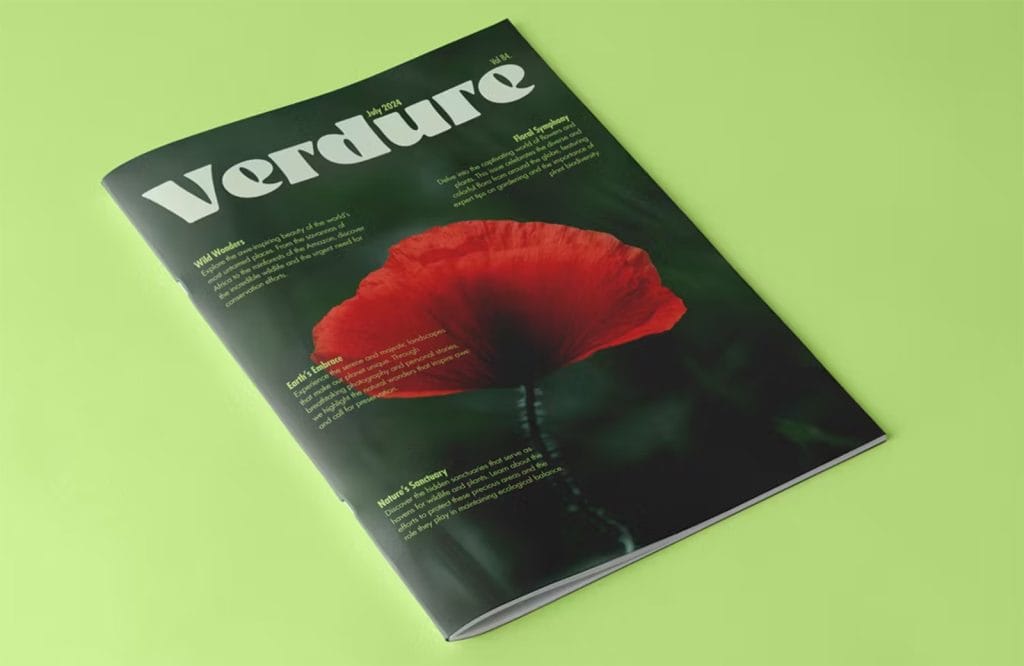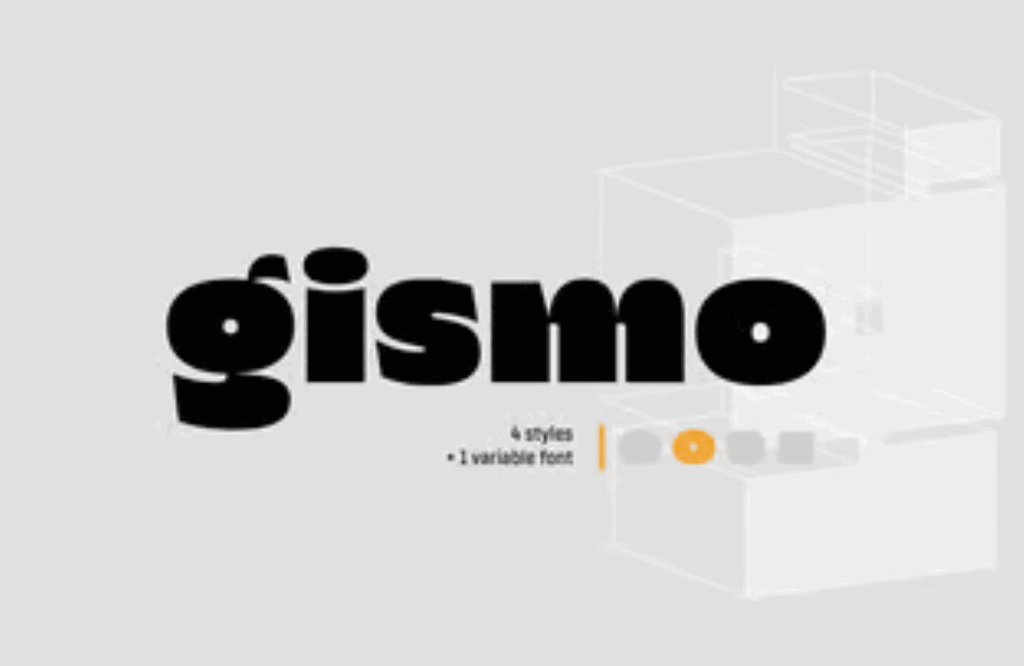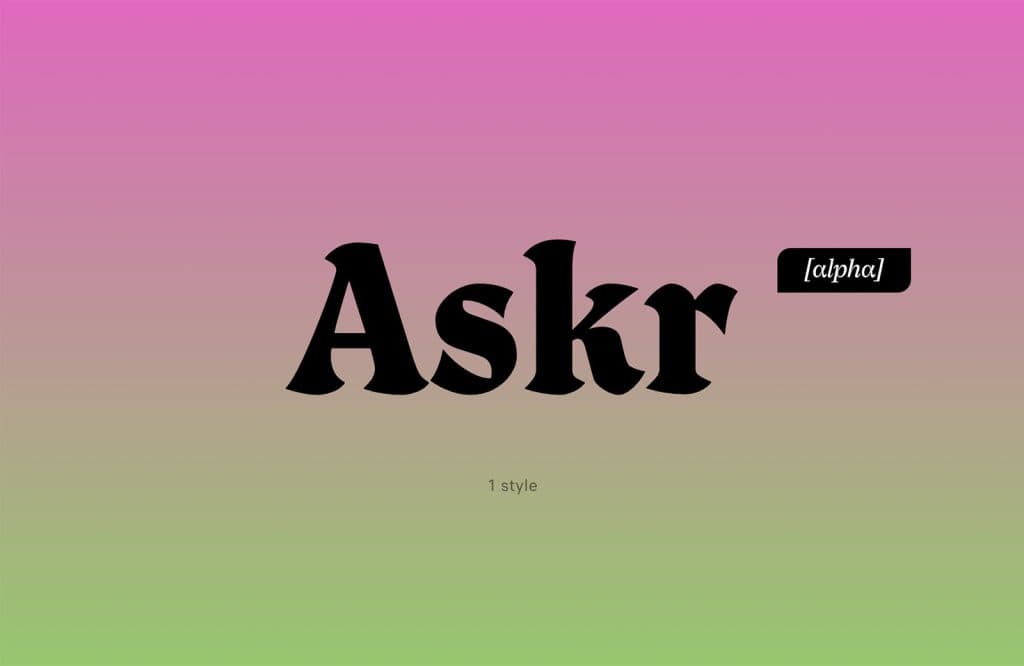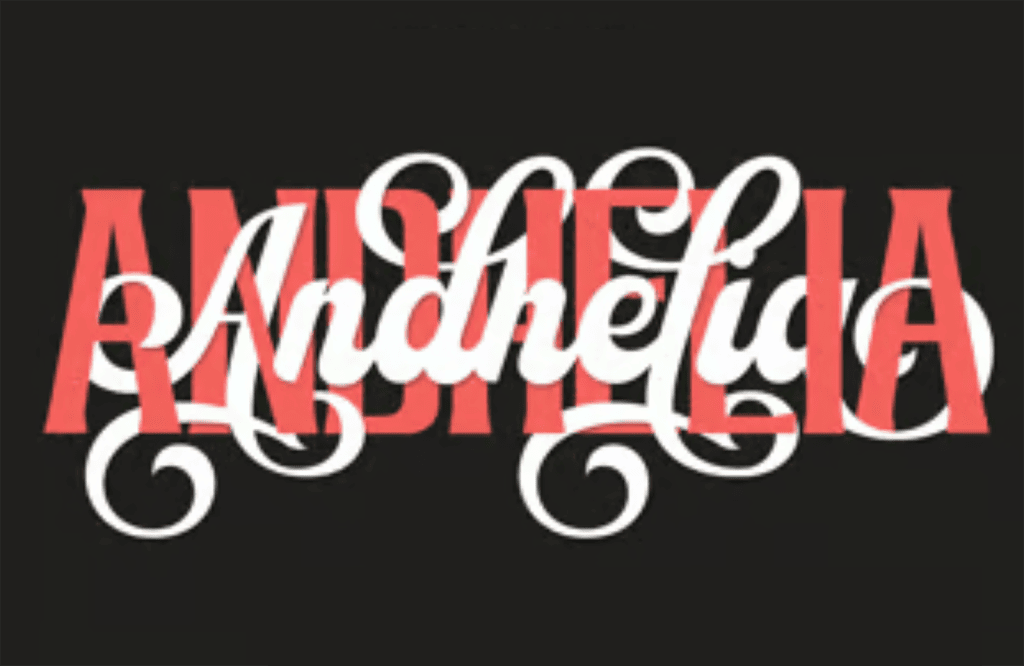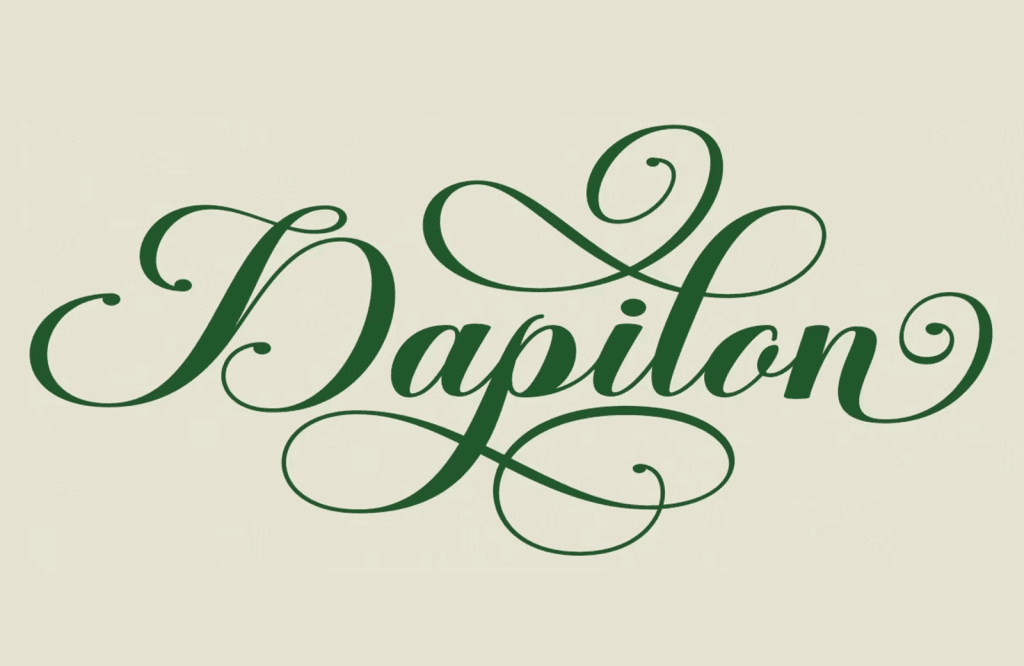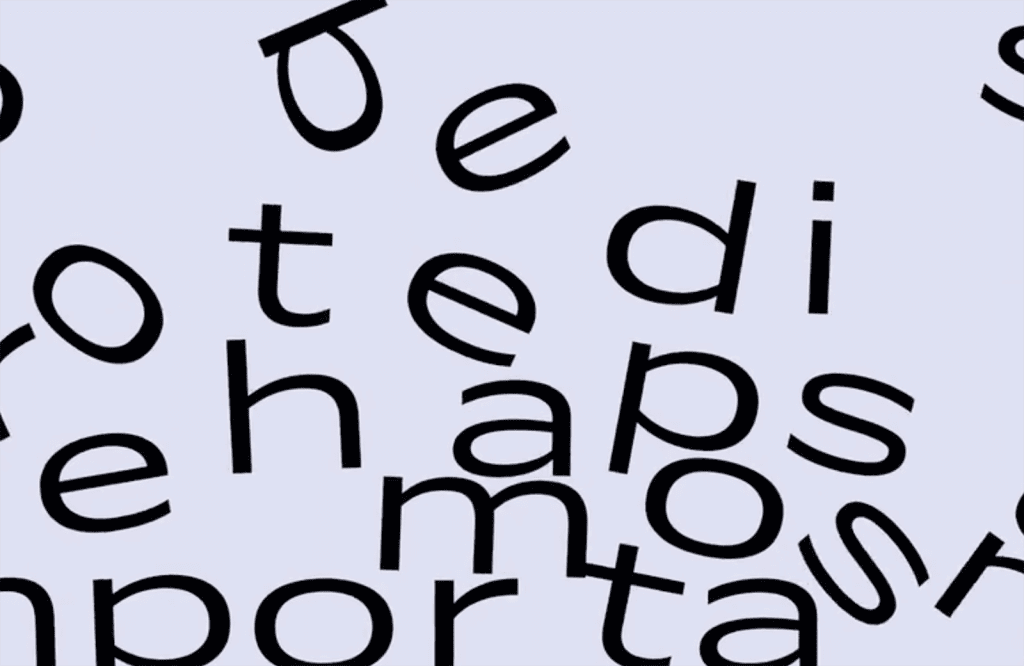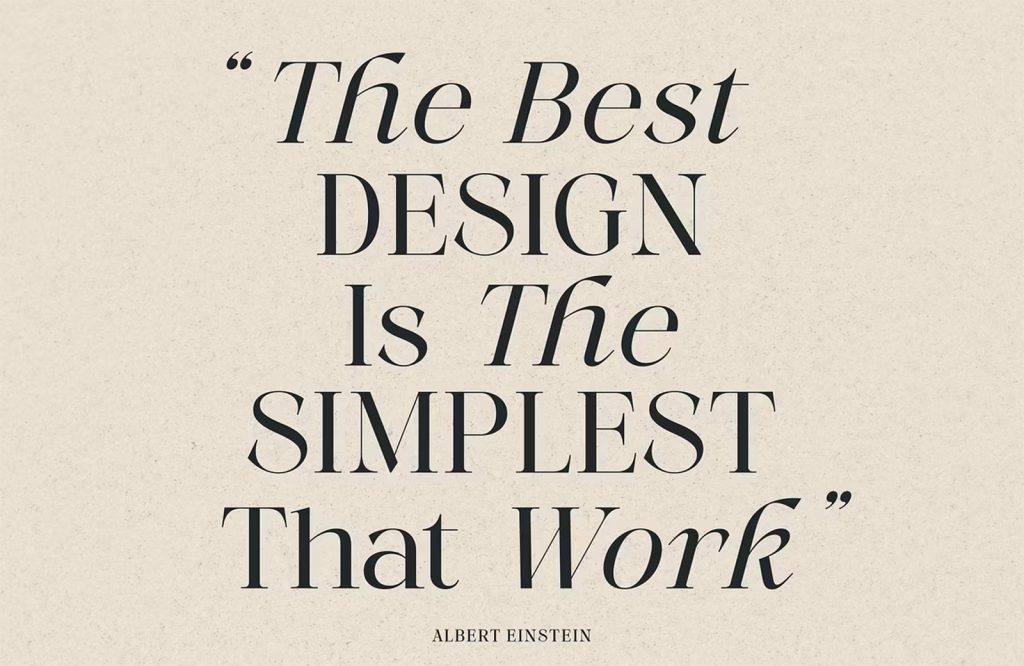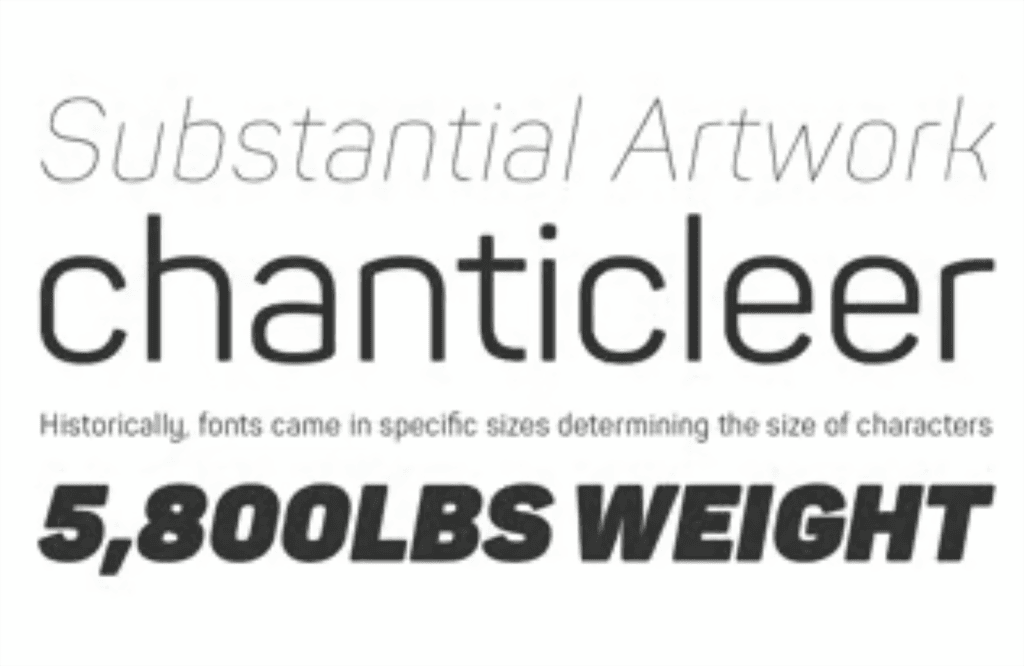
Welcome to August’s roundup of the best fonts we’ve found over the last few weeks. 2024’s trend for flowing curves and retro-inspired scripts continues apace this month. We’ve also included some very flexible sans serifs. Enjoy!
Sticky
Sticky was inspired by the limitations of writing with masking tape. It draws on influences like sign painting, classical italics, and graffiti. The typeface is tightly spaced, which makes it ideal for logos, headlines, and CTAs.
Khuja Smooth
Khuja Smooth is a retro display typeface. It features a blend of organic curves and bold geometric shapes, offering a relaxed yet visually striking style. It’s great for branding and editorial design work.
Gizmo
Gismo is a contemporary display typeface featuring a modern, geometric, industrial aesthetic, making it suitable for eye-catching headlines, branding, and more creative projects.
Askr
Askr is a versatile serif combining classical influences with a modern twist. It features refined details, multiple weights, and a range of stylistic alternates, offering great flexibility.
Andhelia
Andhelia is a script font characterized by a flowing cursive style. It’s perfect for branding, invitations, and social media promotions. The smooth strokes and refined aesthetic lend a personal touch to any project.
Dapilon Script
Dapilon Script features a bold, flowing style with smooth curves. It exudes a casual yet elegant aesthetic, offering numerous ligatures and stylistic alternates to enhance its versatility.
Diploë
Diploë is a unique typeface that combines a sans serif base with an organic, calligraphic touch. The design features a playful mixture of straight and curved strokes, creating an informal yet elegant look.
More Light
More Light is a minimalist serif typeface. It offers a clean and modern look, making it suitable as a corporate typeface. Its streamlined, high-contrast style makes it ideal for fashion and lifestyle projects that require a no-nonsense aesthetic.
Panton
Panton is a modern, geometric sans featuring a clean, straightforward design with rounded edges. It’s highly legible, making it ideal for projects that require a professional, contemporary look.
Home
Home is a distinctive and versatile sans serif family designed with a futuristic aesthetic. It balances a modern look with functional readability, making it suitable for both creative and professional applications. Home is currently in beta.
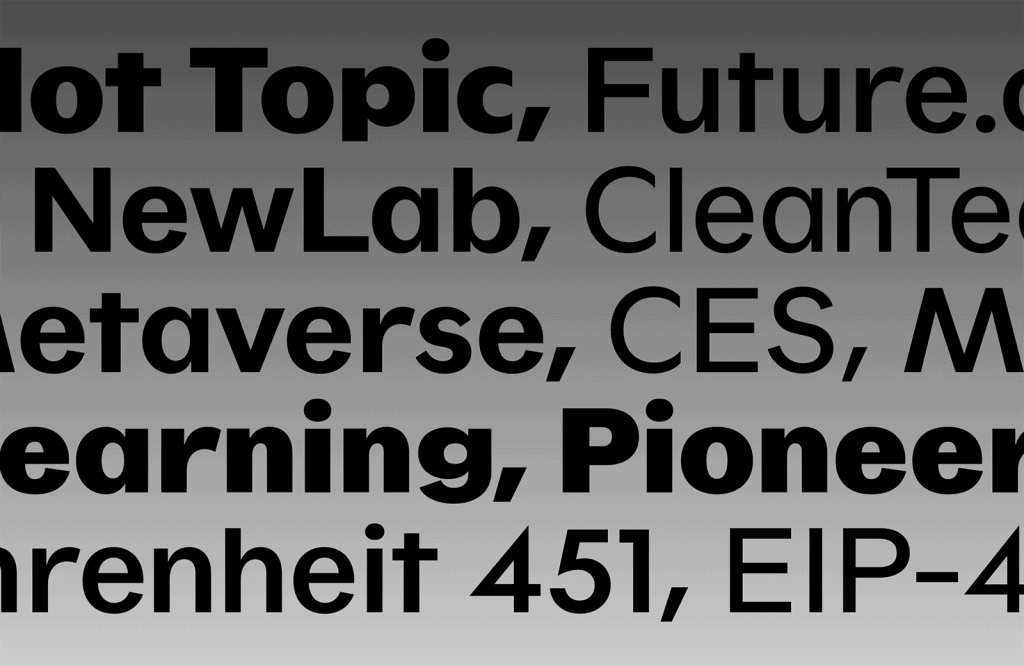
Charming Blues
Charming Blues is a stylish serif-script hybrid featuring elegant, flowing lines and a casual yet refined look. It includes ligatures and alternates, offering flexibility for fine typography.
The Love Distance
The Love Distance is a script font designed for wedding invitations, greeting cards, and other projects that require a personal, heartfelt touch. Its flowing, cursive design gives any text a warm and intimate feel.
Fortune Basic
Fortune Basic is a modern serif combining classic elegance with contemporary styling, making it suitable for branding, corporate, and editorial design. It features a clean, sharp appearance with a touch of sophistication.
Balmore
Balmore is a vintage-inspired serif with elegant, classic letterforms and a retro aesthetic. It includes ligatures and stylistic alternates, adding versatility.
Heproyal
Heproyal is a sophisticated serif perfect for projects that require a touch of luxury. Its distinctive letterforms make it well-suited for both display and text purposes.